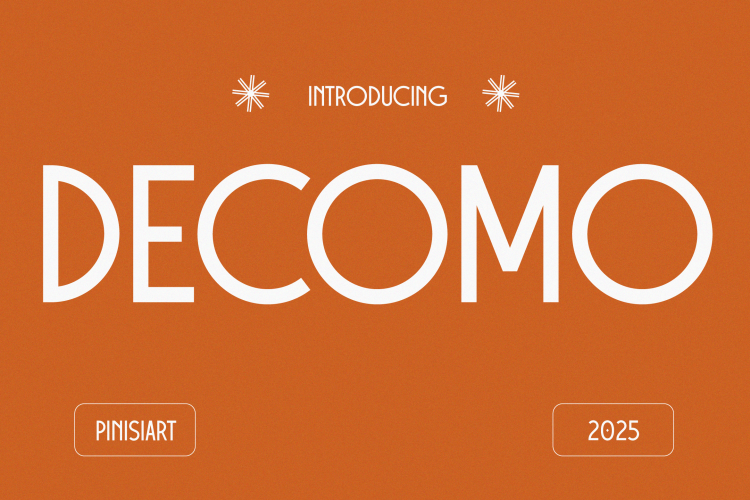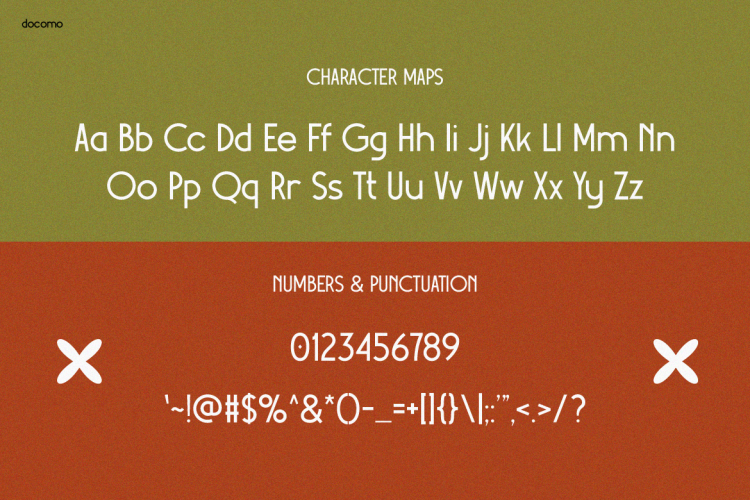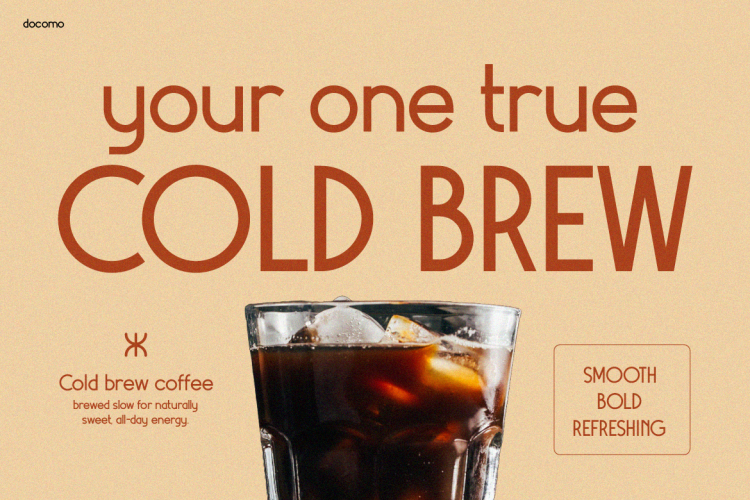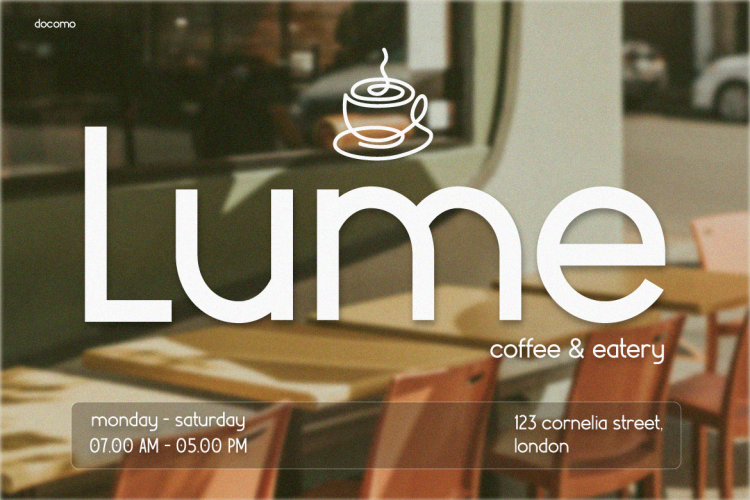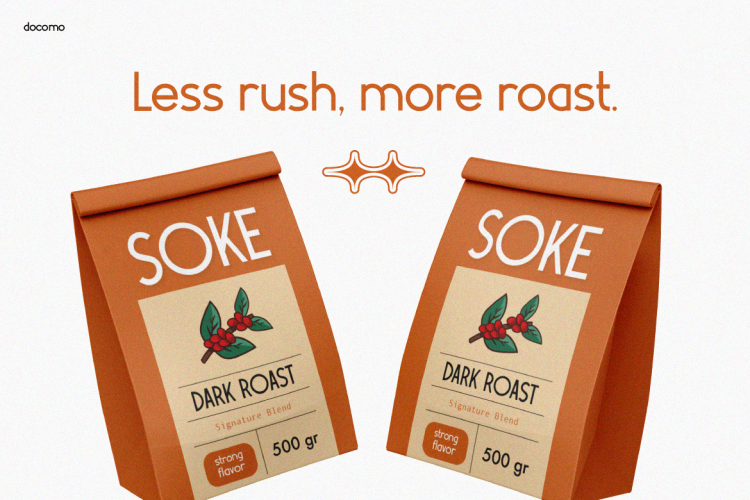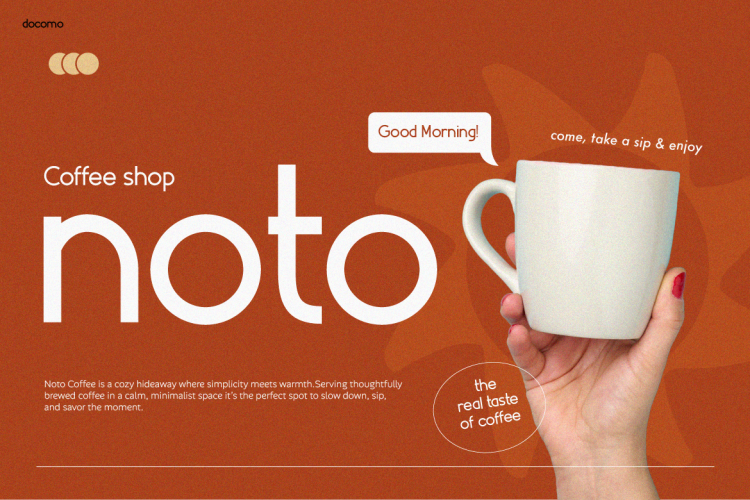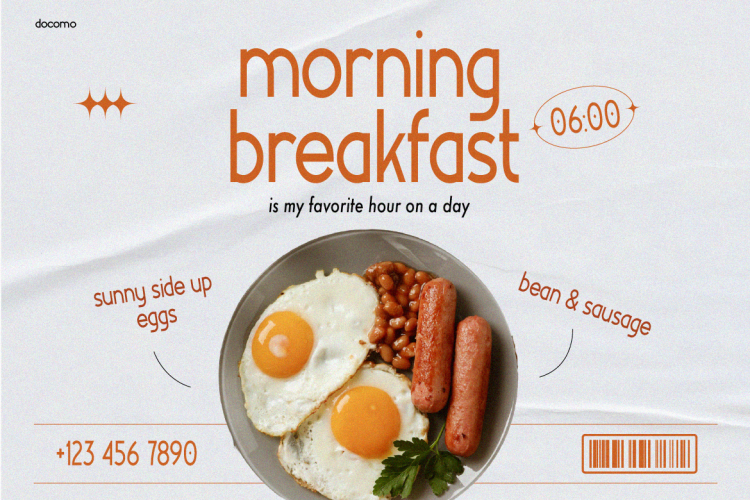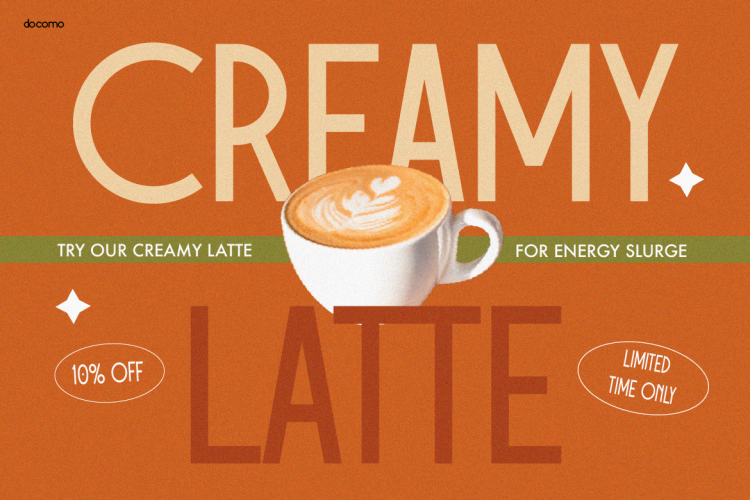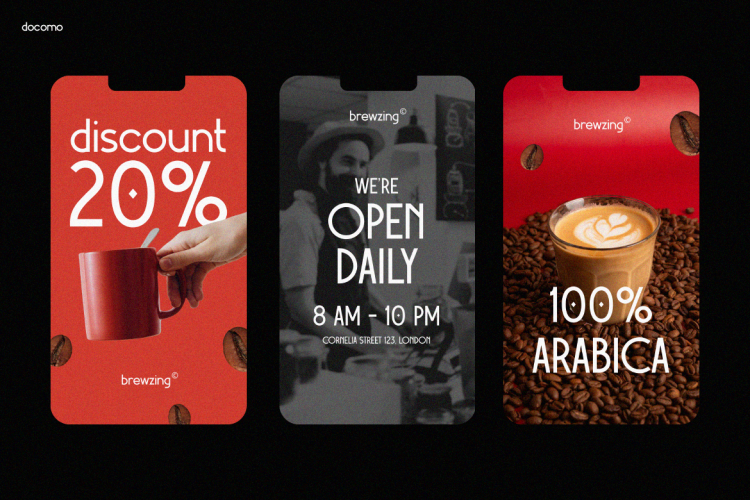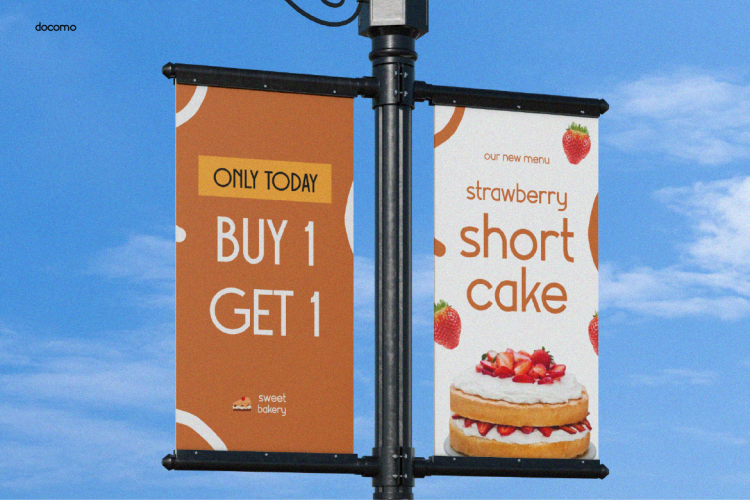
Retro Font DECOMO
Retro Font DECOMO is more than a typeface โ itโs a timeless visual experience. This font captures the charm of retro design yet keeps a modern feel. Its rounded edges, bold strokes, and smooth balance make every word feel alive. Each curve adds warmth, and each line delivers clarity. As a result, your design looks classic yet fresh at the same time.
Moreover, Retro Font DECOMO stands out because of its elegant simplicity. It blends the coziness of vintage cafรฉs with the precision of modern branding. Whether used for posters, packaging, or headlines, this font always makes your message shine. In addition, its legible shapes make it work perfectly in both large titles and smaller details.
Every letter feels designed with care and purpose. Therefore, DECOMO doesnโt just present text โ it creates emotion. It helps your project express trust, creativity, and connection. The tone feels friendly yet stylish, which makes it ideal for brands that want a personal touch without losing professionalism.
Retro Font DECOMO is perfect for designers, cafรฉ owners, small businesses, and creative brands who love nostalgic charm. It works beautifully for coffee packaging, menu design, product labels, poster art, and vintage-style logos.
Furthermore, it fits perfectly in social media content, branding kits, and lifestyle visuals. You can also use it for ads, web headers, or event designs that need character and warmth. Because of its clean yet cozy look, DECOMO adapts easily to different creative directions. Itโs flexible, readable, and full of personality โ ready to make your project stand out.
Bring the Retro Vibe to Life